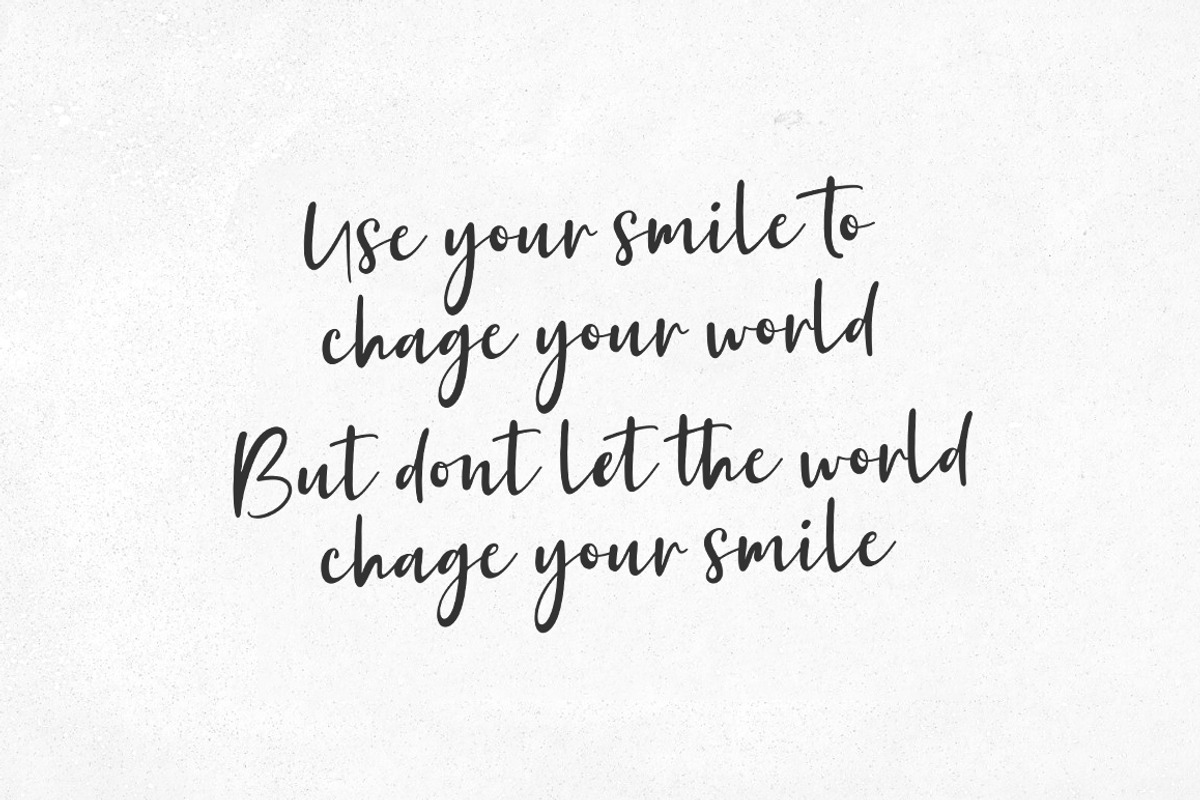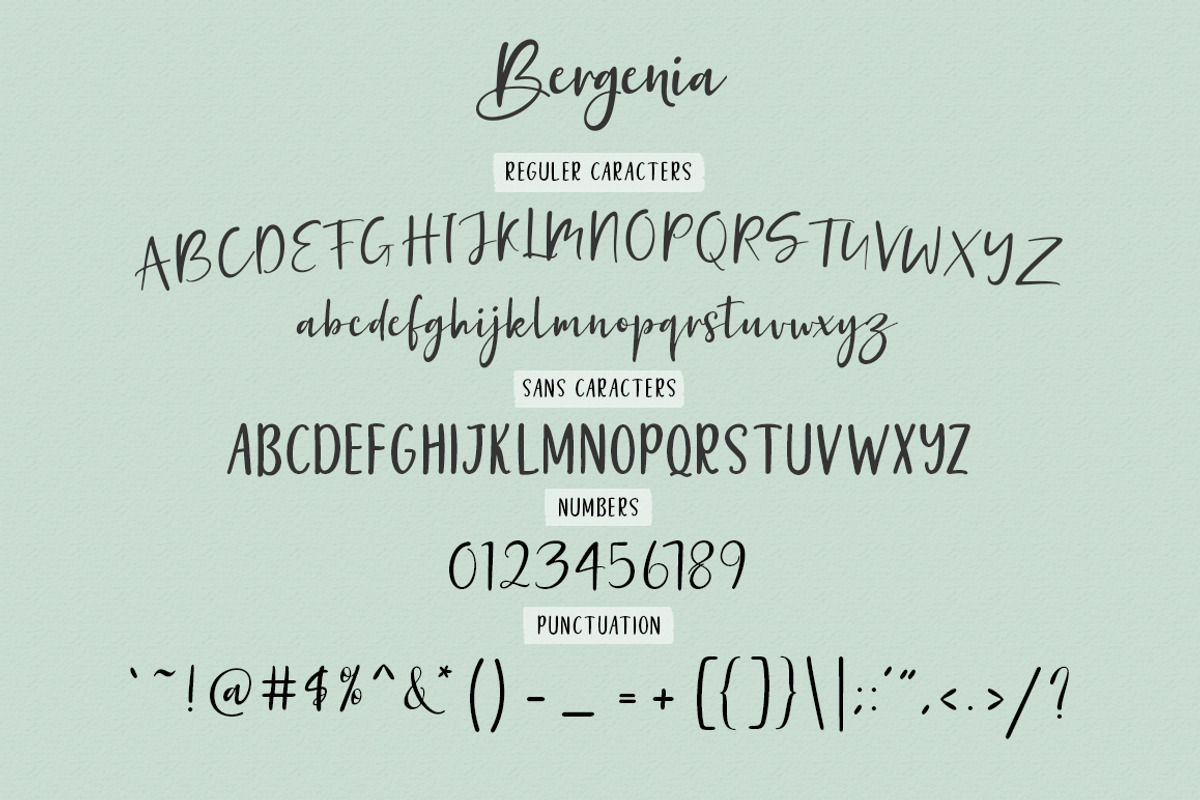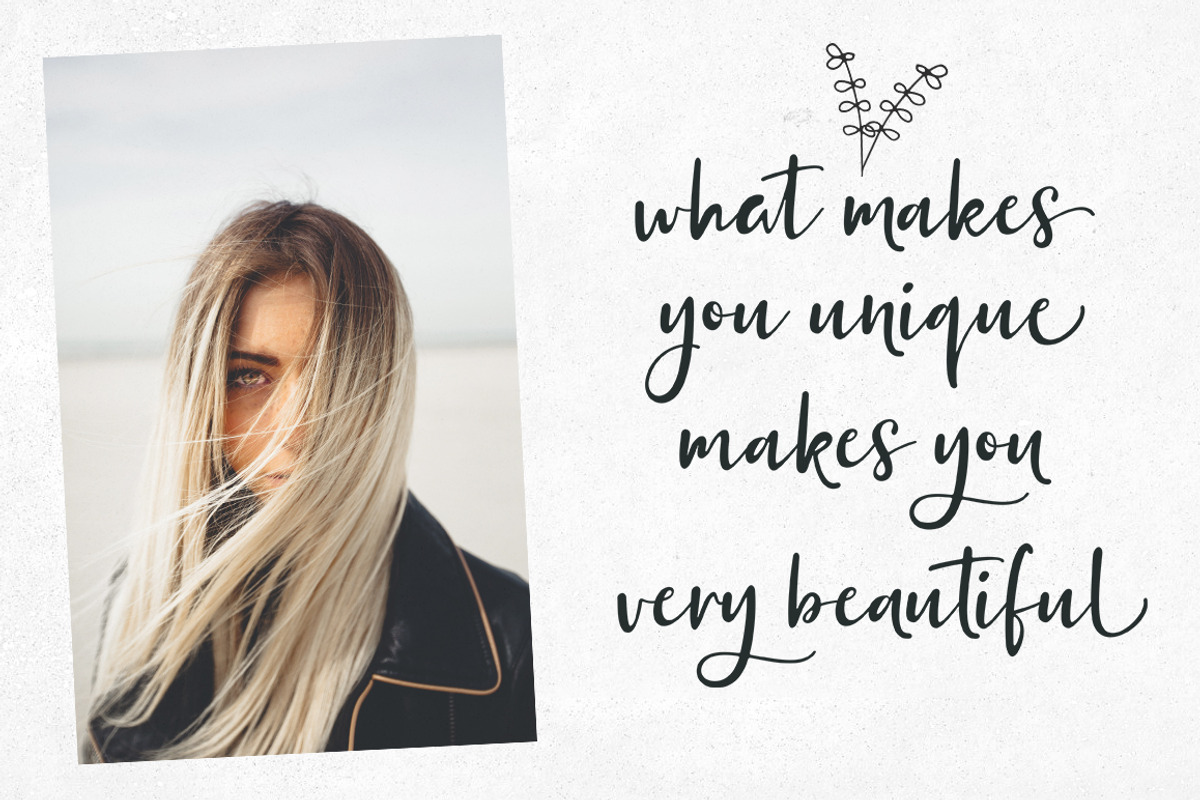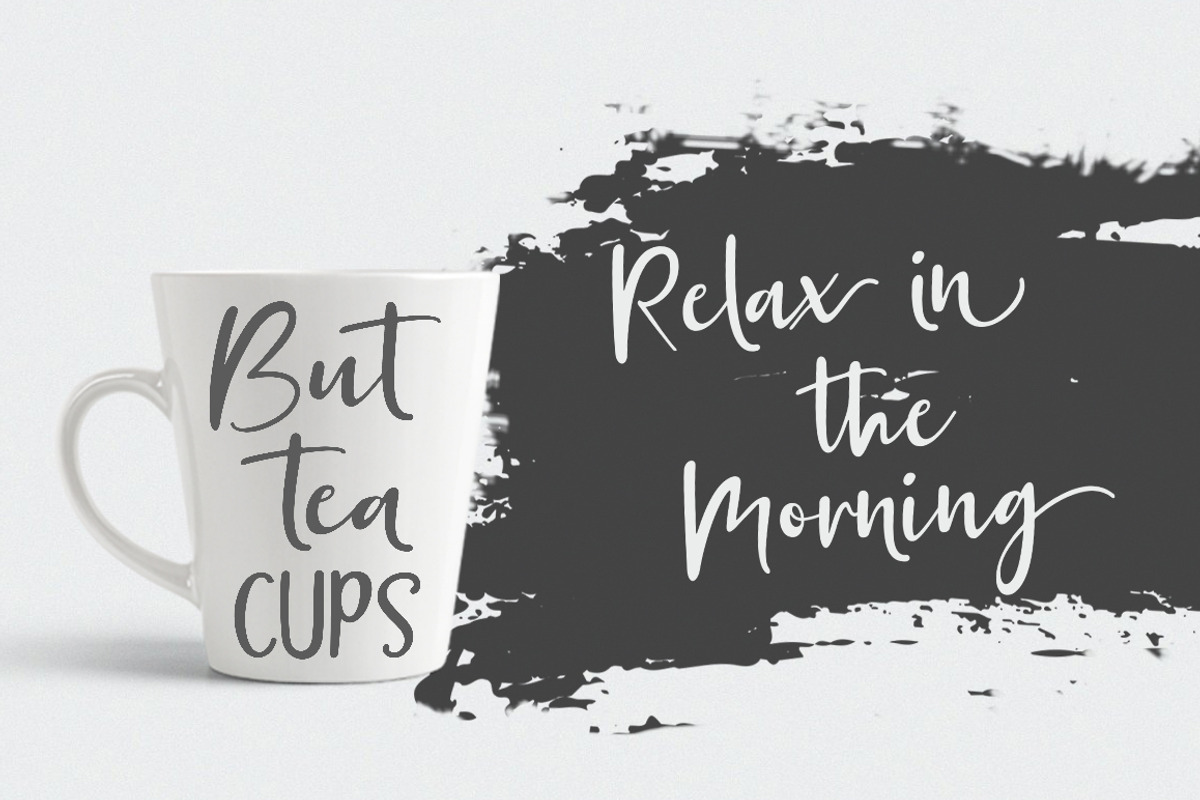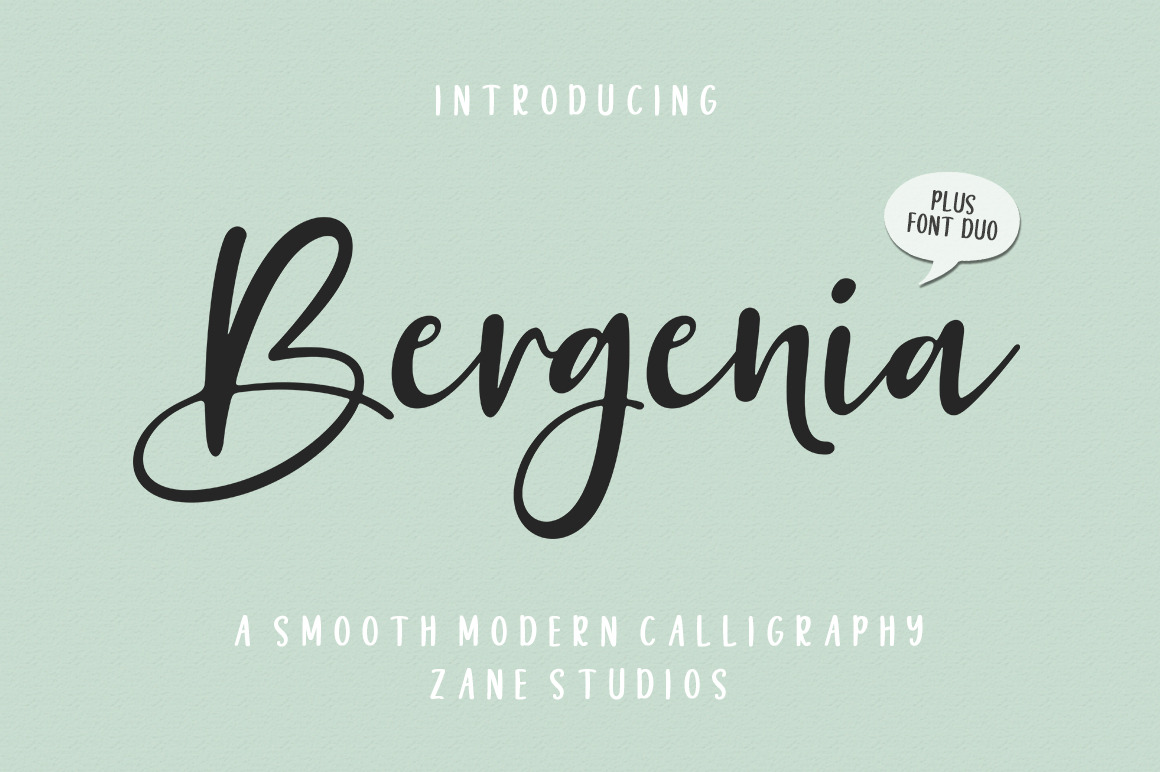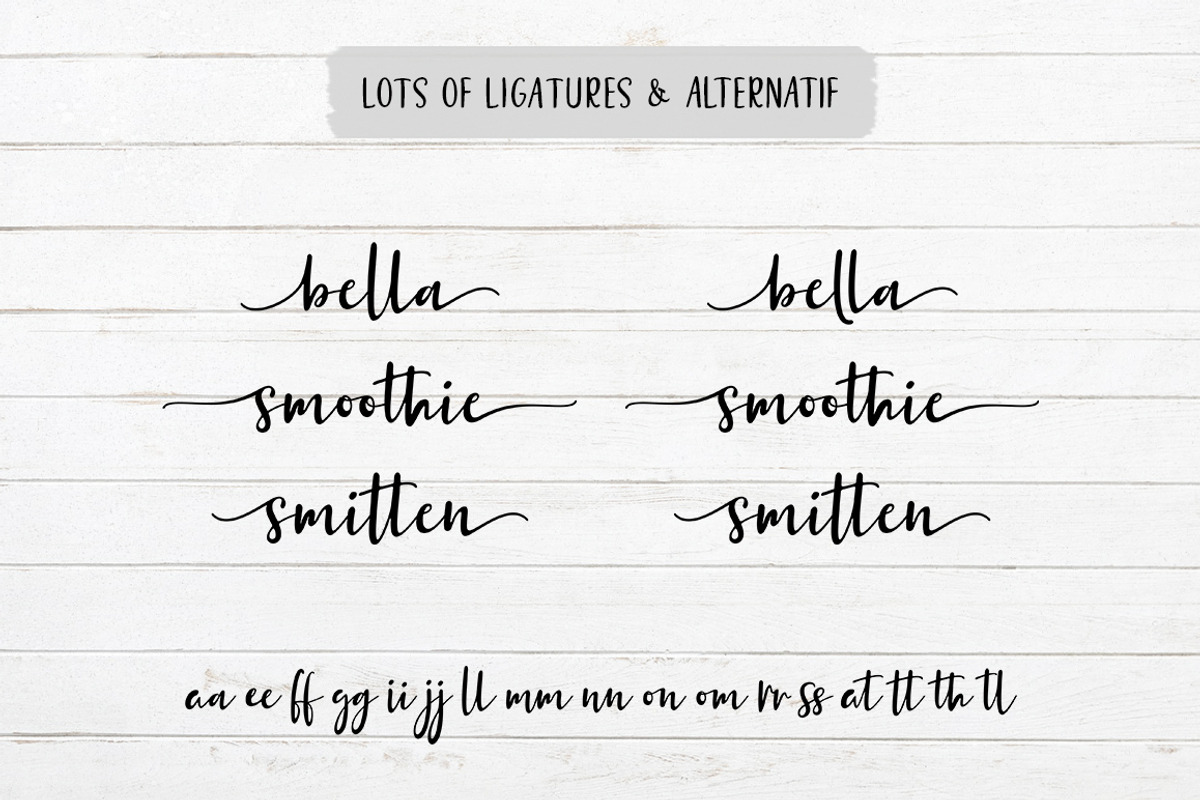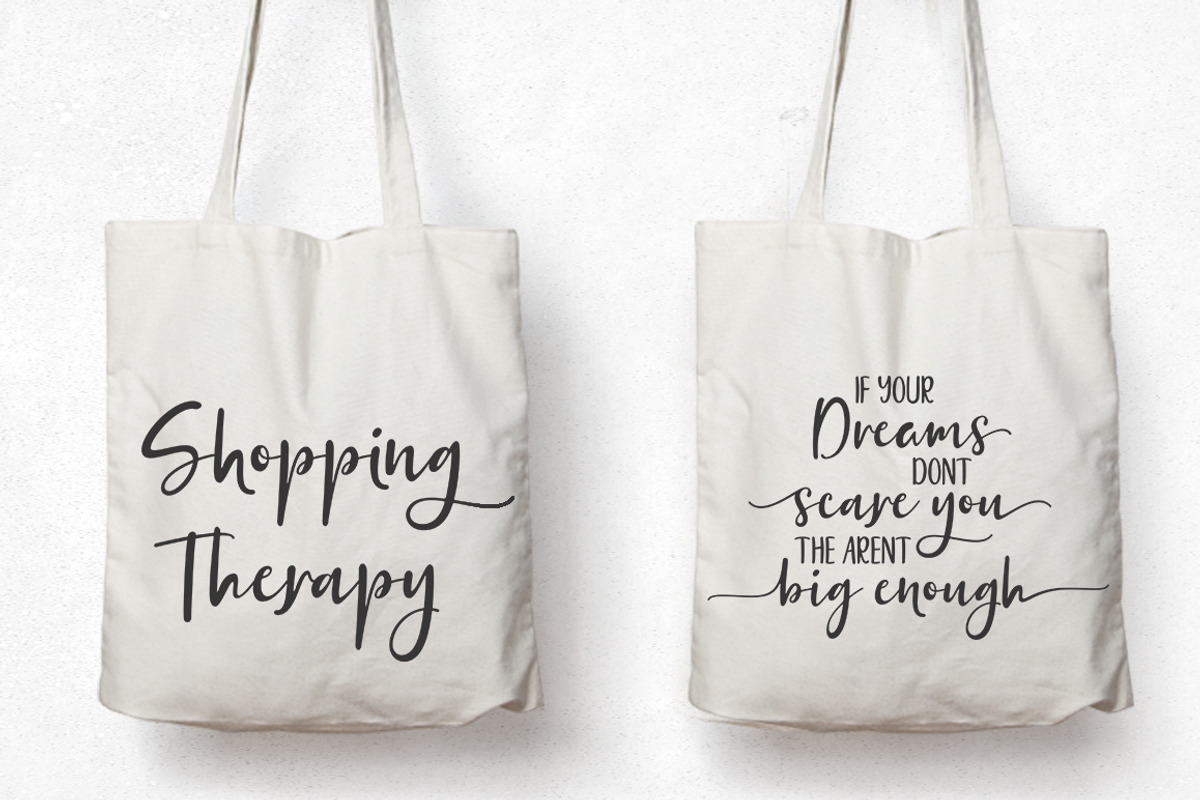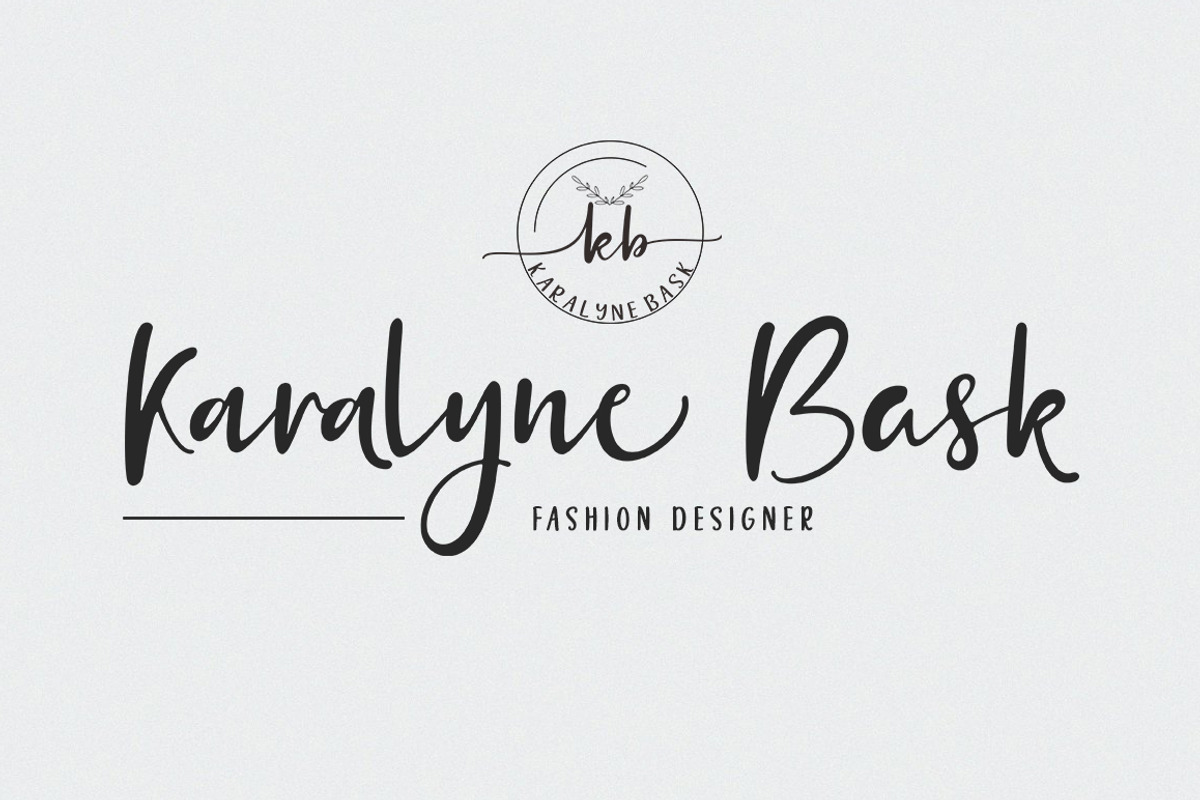
Bergenia Script FONT DUO
Bergenia Script FONT DUO is a new modern script font with irregular base lines. Trendy and feminine style. Bergenia Script looks beautiful in wedding invitations, thank-you cards, quotes, greeting cards, logos, business cards, and more. Perfect for use in ink or watercolors. Includes initial letters and terminals, alternatives and support for many languages.